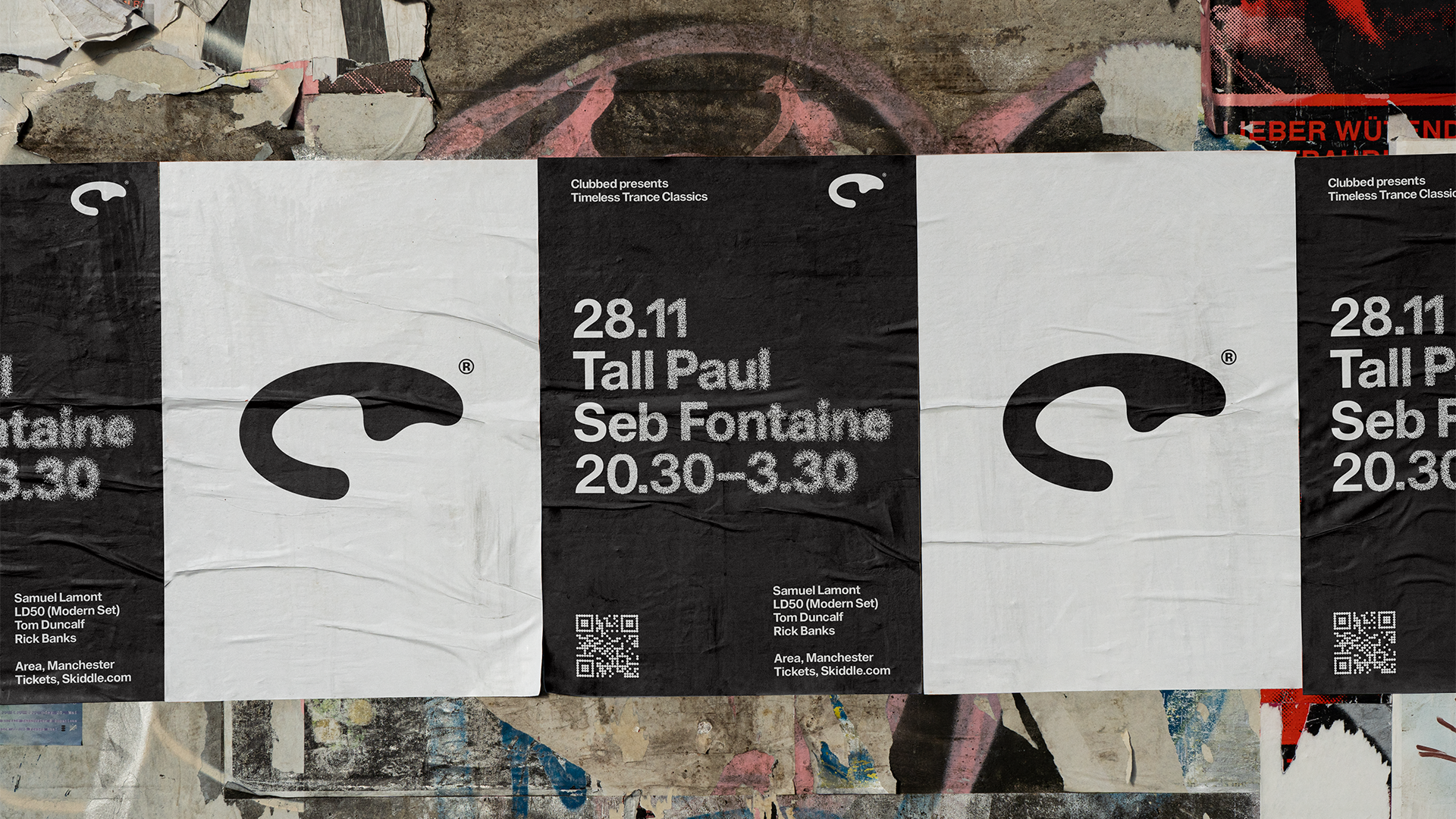
At the heart of the Clubbed identity is F37 Euphoria, a custom display font that begins solid before dispersing into particles. It captures the euphoric explosion of trance music and mimics the sparkling cover of the Clubbed book. This type-led system forms the foundation of the brand, brought to life across motion, digital screens and print.
As both a promoter and design studio, Clubbed wanted to show how strong visuals can reignite emotional connection in club culture. Clubbed represents a new era, one where music and design come together to celebrate the past while still moving the scene forward.
Born from our best-selling book Clubbed: A Visual History of UK Club Culture, Clubbed is a new Manchester-based club promoter that celebrates the golden era of clubbing through music and design.
Drawing inspiration from iconic brands such as Cream and The Haçienda, the visual identity aims to reintroduces the level of craft and creativity that once defined the club scene. With club culture now living mostly online, the design aims to bring back the impact that printed flyers and posters once had.
As part of the branding system for Clubbed, we delivered F37 Euphoria, a font that pushed legibility and technology to their limits. We utilised both the static and variable font formats, each with a unique application and approach.
The static font was a technological battle, triumphing over file size limits in design software. Adobe sets a hard 64kb limit on fonts, and since F37 Euphoria was a complex and large font, we used UPM scaling and other tricks to find a perfect compromise. We further approached the production of F37 Euphoria in a way that allowed us to create both the cascading display font and a solid text type from the same underlying design.
The variable font was designed purely as a motion design asset. We chose variable technology because, compared to the numerous approaches to a scatter effect in post-production using motion software, a variable font allowed for a consistent scatter motion across assets, regardless of the input or motion designer. We also explored other variable axes beyond a simple scatter and ultimately settled on two: a “scatter” axis and a “particle size” axis. This added depth to the axes, with the particle size giving an illusion of distance.